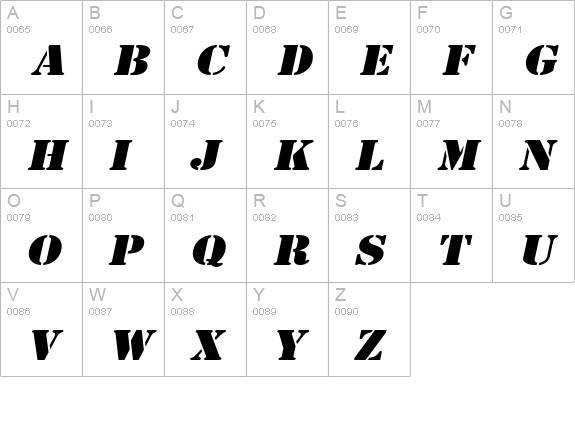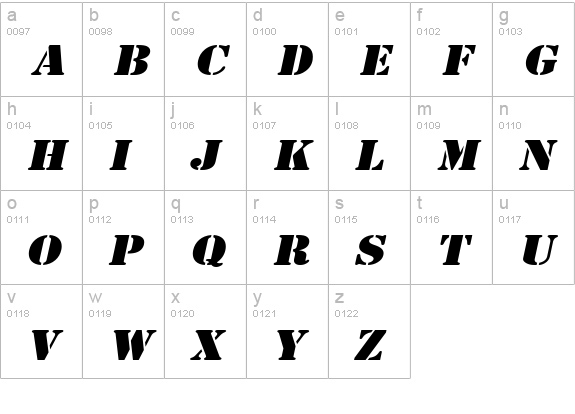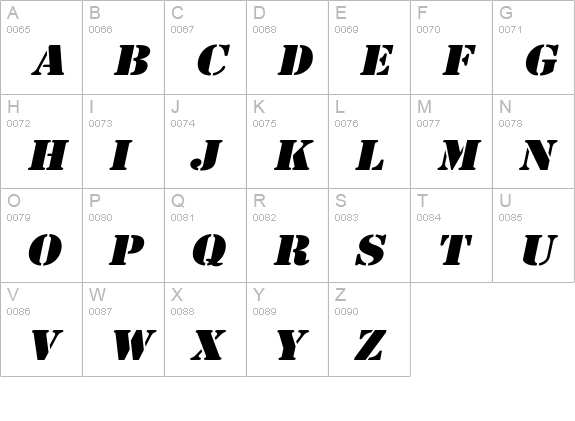
GI StencilExtended Italic is a distinctive, italic variant in the GI typeface family \xE2\x80\x94 well suited to design and typography projects.
GI StencilExtended Italic is a versatile and modern font that effortlessly blends military-inspired stencil design with a touch of elegance. The slanted, italicized characters create a dynamic and eye-catching appearance that is perfect for a wide range of design projects. This font is ideal for adding a bold and unique touch to posters, headlines, logos, and more. And the best part is that GI StencilExtended Italic is available for free download at FontsMarket.com. So you can easily access this striking font and enhance your designs with its distinctive style. Embrace the creativity and versatility of GI StencilExtended Italic in your next project and make a lasting impression with its bold and captivating aesthetic.